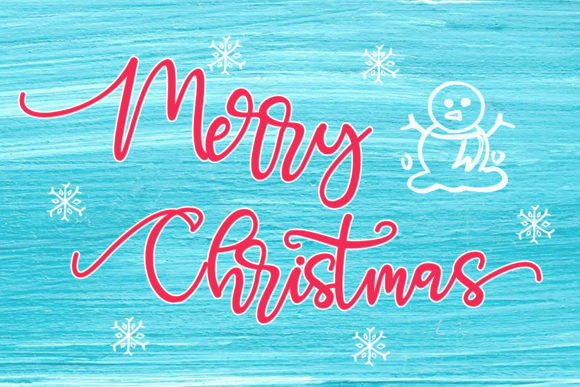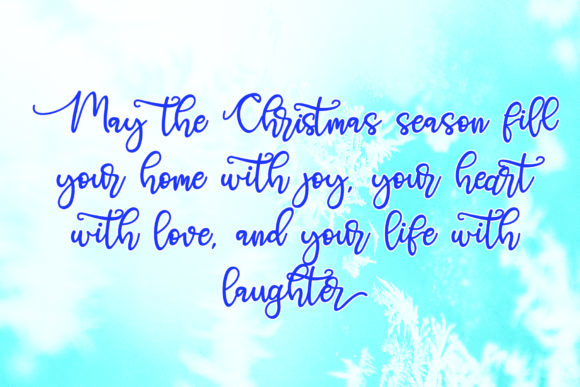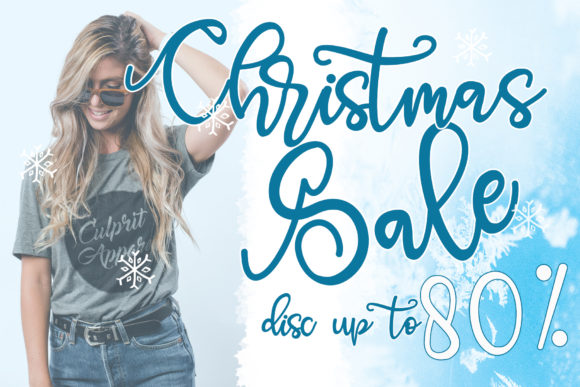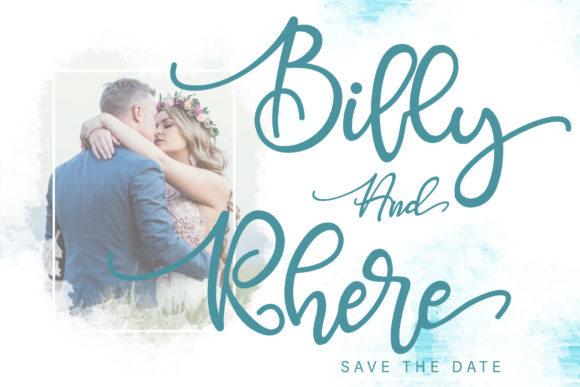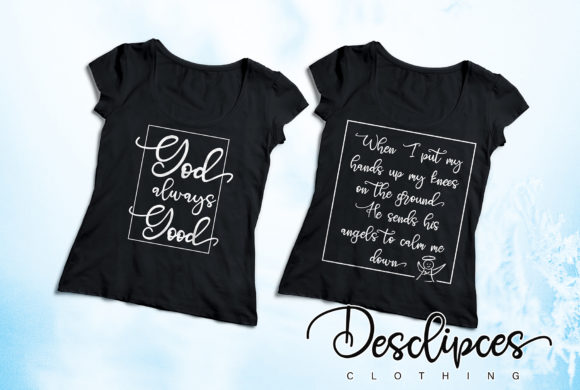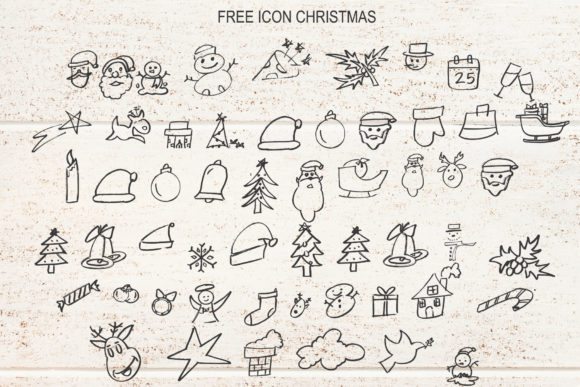
Introducing Alleluya Font: A Stunning and Unique Font Family for Designers and Crafters
In the world of typography, a good font can make all the difference in the success of a design project. Whether you’re a professional designer, a crafty DIY enthusiast, or a small business owner looking to create a strong brand identity, having access to a high-quality font is essential. That’s where Alleluya Font comes in – a stunning and unique font family that brings together an incredible set of icons and a bold script.
What is Alleluya Font?
Alleluya Font is a carefully crafted font family designed to add a touch of elegance and sophistication to any design project. This font family consists of a bold script and an extensive set of icons, making it a versatile and all-in-one solution for designers and crafters. The Alleluya Font family is perfect for a wide range of applications, including branding, packaging, signage, and digital graphics.
Key Features of Alleluya Font
- Unique and Bold Script: The Alleluya Font script is designed to make a statement. Its bold and elegant strokes make it perfect for headlines, titles, and emphasis.
- Extensive Icon Set: The Alleluya Font family comes with an incredible set of icons, covering a wide range of topics and themes. From basic shapes and symbols to more complex illustrations, this icon set has everything you need to add visual interest to your designs.
- High-Quality Design: The Alleluya Font family is designed with precision and attention to detail, ensuring that every letter and icon is crisp and clear, even at large sizes.
Who Can Benefit from Alleluya Font?
Alleluya Font is an excellent choice for a variety of designers and crafters, including:
- Graphic Designers: Looking for a unique and bold font to add to their branding and advertising projects.
- DIY Crafters: Creating handmade cards, scrapbook pages, and other paper crafts that require a touch of elegance.
- Small Business Owners: Seeking to create a strong brand identity with a custom font.
- Digital Artists: Looking for a versatile font to use in their digital art and illustrations.
How to Use Alleluya Font in Your Designs
Using Alleluya Font in your designs is easy and straightforward. Here are a few tips to get you started:
- Pair it with Other Fonts: Combine Alleluya Font with other fonts to create a unique and visually appealing typography.
- Use Icons Creatively: Use the Alleluya Font icon set to add visual interest and illustrate complex concepts.
Alleluya Font is a stunning and unique font family that offers designers and crafters a versatile and high-quality solution for their design needs. With its bold script and extensive icon set, this font family is perfect for a wide range of applications, from branding and packaging to digital graphics and paper crafts. Whether you’re a professional designer or a DIY enthusiast, Alleluya Font is an excellent choice for adding a touch of elegance and sophistication to your designs.